9 Most Recommended Thick Fonts That Look Heavy and Chunky
Most Recommended Thick Fonts
Fonts selection is vital for designers due to its effect to design industries. Additionally, there are many choices you can select for your designs. Thick fonts look heavy and chunky, also they are appropriate for several functions such as advertisements. If you are looking for recommendations, keep reading to the next chapter!
9 Recommended Thick Fonts
Because you are looking for recommendations, I will list the best eight chubby fonts in this article. Feel free to choose the one suits your need so that it can beautify your designs. Without further ado, let’s begin!
1. Nestor
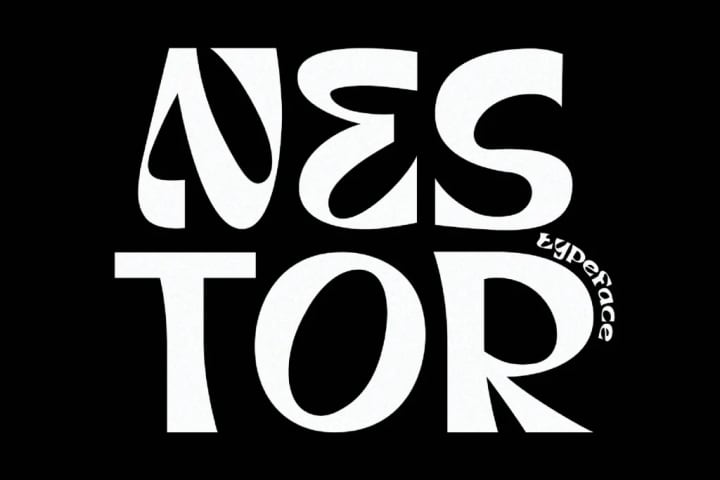
Nestor is one of the thick fonts recommendations you can use for many designs, including advertisements, headlines, posters, and posts on social media. It features groovy curves with a bold personality.
Not only is the font heavy and chunky, but also it has unique shapes. It seems quirky yet has exact letters that are easy to read. As a result, people will find the font great to entitle your message.
2. Windsor
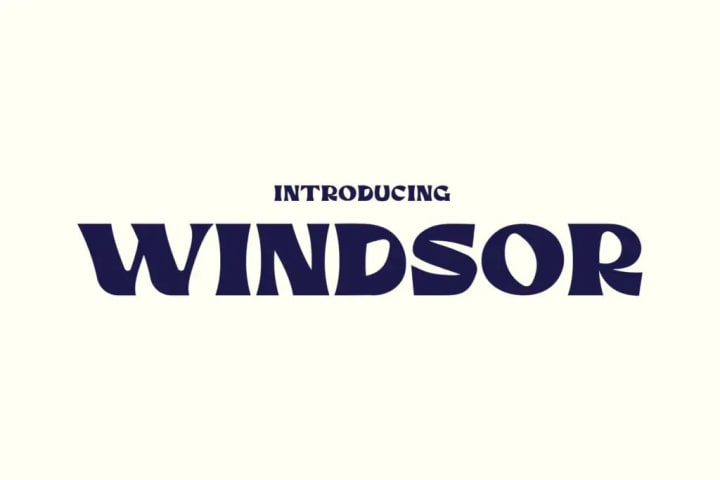
Are you a magazine designer who is used to designing a cover? Then, Windsor is the best option! It is steady with a bold shape but still very easy to understand. Every line of the letter arranges neatly to perform a word or sentence.
Furthermore, this font is ideal for your magazines or posters. You may even use it for huge stickers that require a clear message. Thus, designers can utilize Windsor effectively to create eye-catching designs.
3. Promesh
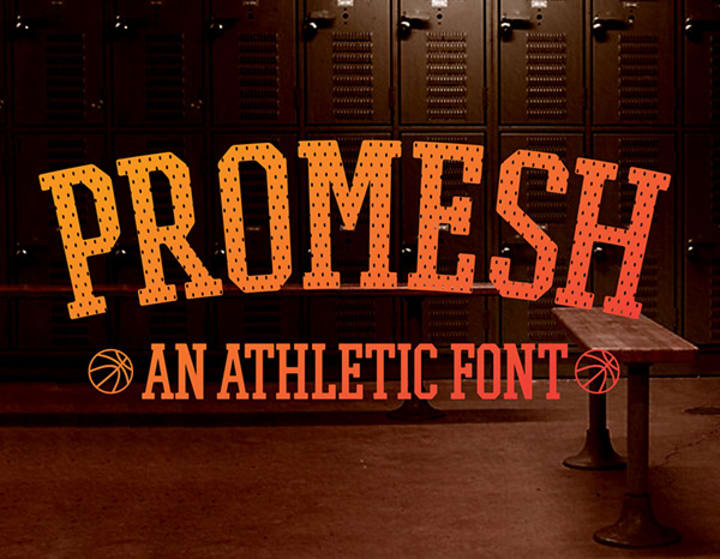
As the name implies, Promesh is one of the thick fonts you can function for athletic requirements. It is bold and chubby, yet seems manly. Although it is only available in capitals, designers may effectively use it for any sporty projects.
For example, athletic products, tv entertainment correlates with sports and fitness, or even banners to promote your gym center. With this look, you can attract anyone who has great interests in the sports industry.
4. Summit
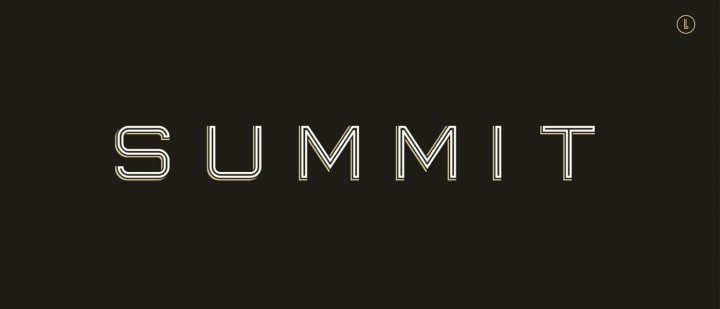
Next, you may think that Summit Font looks out of date. But, do not need to think so because this traditional-like bold font will highlight your headlines well. The height and weight are perfect to attract readers.
You may even add some controversial words with this bold appearance. Even though some people think it looks so old, others find this font nostalgic. Hence, designers have an excellent choice for their next project.
5. Franchise
Do you need recommendations for simple thick fonts? Then, I would say Franchis Font would be your best choice. It is clean with easy-to-read shapes, allowing the readers to easily understand the message.
Moreover, the details are subtle, which can grab attention efficiently. This font is perfect for headlines due to the bold choice, giving supremacy and power. Even better, you will love the magnificent space between the letters that is compact and well-fitted for your designs.
6. Hit and Run
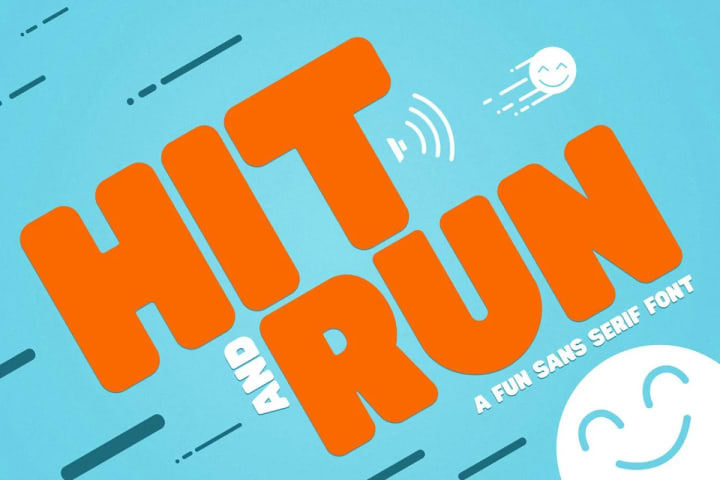
Is your design related to children and childhood memories? If so, Hit and Run in this sixth list can accompany you to reach great attention. It is cute and playful, but bold yet very easy to understand, even for children.
In addition, you can add kids-friendly illustrations such as the smile in the picture above to give a more friendly look. So, are you ready to show fun things to your target audience?
7. Remark
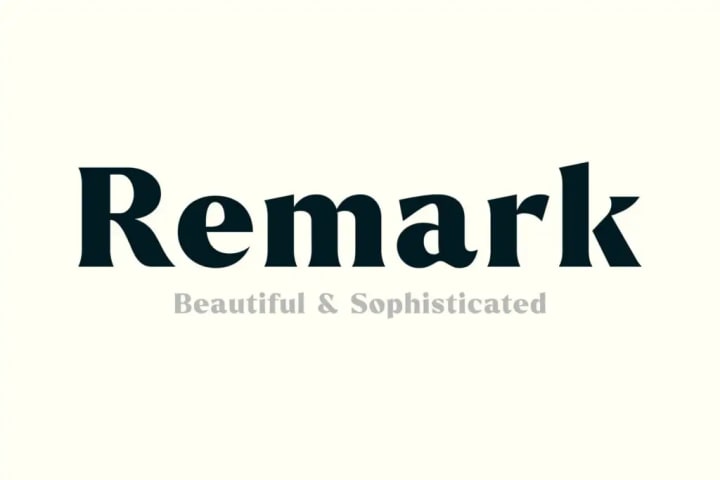
Sometimes people could not understand thick fonts due to their unique shapes. But not for this list because Remark Font can bring distinctive effects. It is a font inspired by Roman Empire, looking gorgeous with a perfect line from capital to lowercase.
Thanks to its flawless, designers can use it for quotes, posters, headings, websites, invitation labels, and even packaging design. So, whoever read the font will fall in love because of its beautiful appearance.
8. Speakeasy
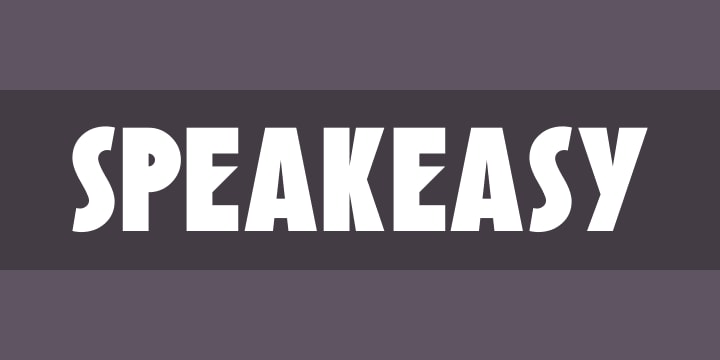
Speakeasy is created after inspiration by the 20th century. It is futuristic, and the line is different from others. You can see the E letter has a unique and distinctive shape.
But, do not worry because some people are fond of this kind of font. They will immediately think if the font is attractive and easy to read. So, what design will you use for one of these thick fonts?
9. Gorock Brush
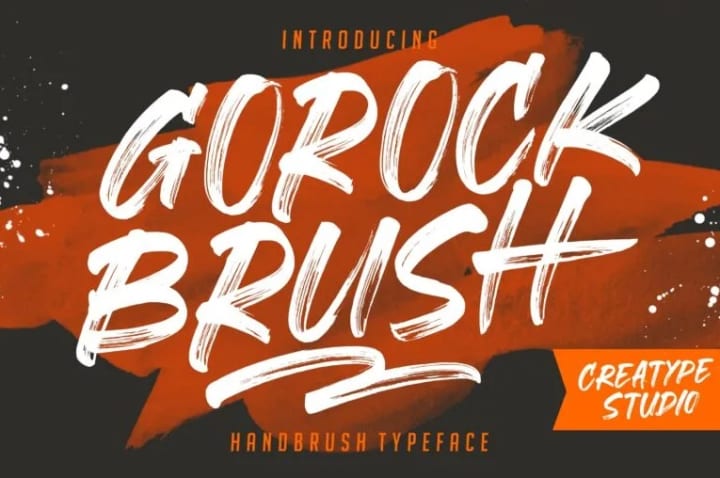
Lastly, Gorock Brush is a result of a hand brush that enhance your design into a better image. If you are into handwriting, I’d recommend using this font for your next project.
In addition, this font will give a new look to photography. You may even use it for watermarking a photo or designing a product label. Therefore, this thick font will bring your design attractiveness to engage more audience.